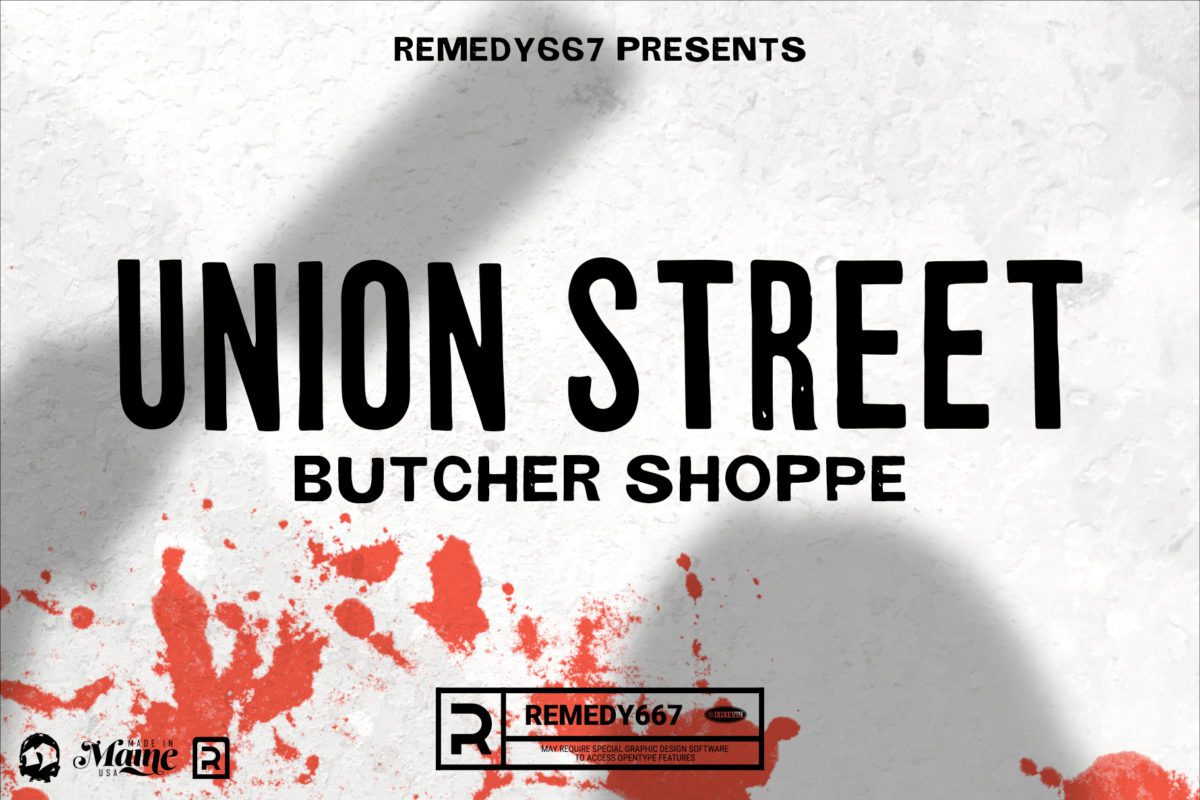
Union Street South is a font inspired by a vintage business directory from the late 1800s. Union Street South is a vintage-inspired font, created with a modern twist. Use it to create your own personal business cards or logo, or as an overlay for your images.